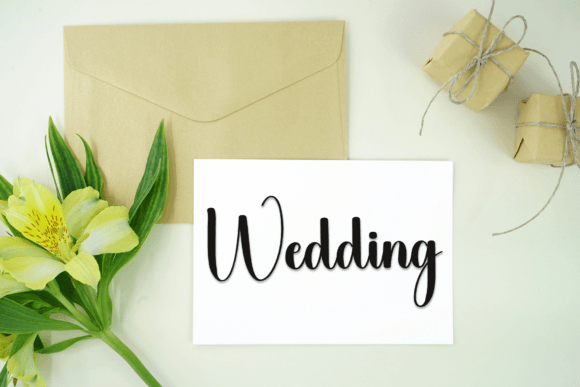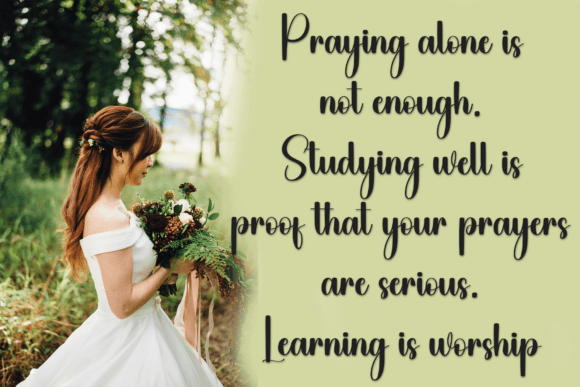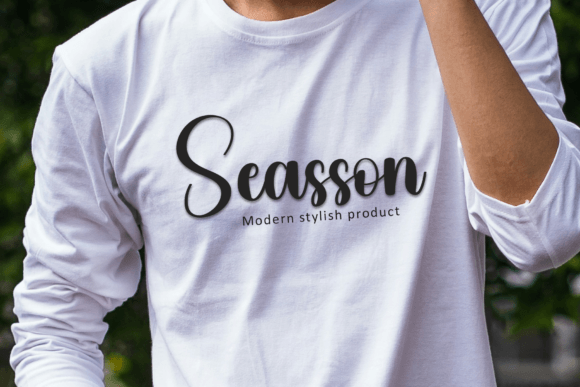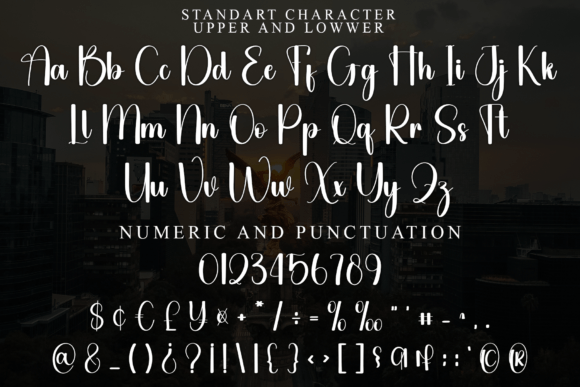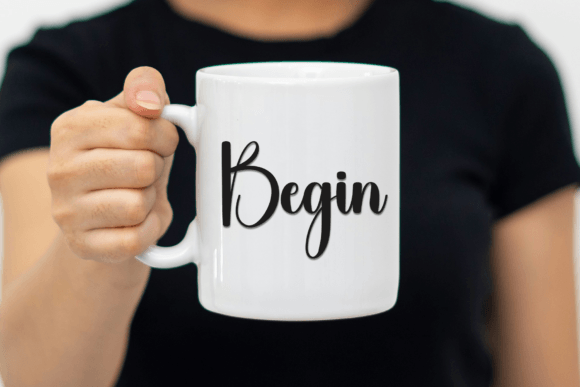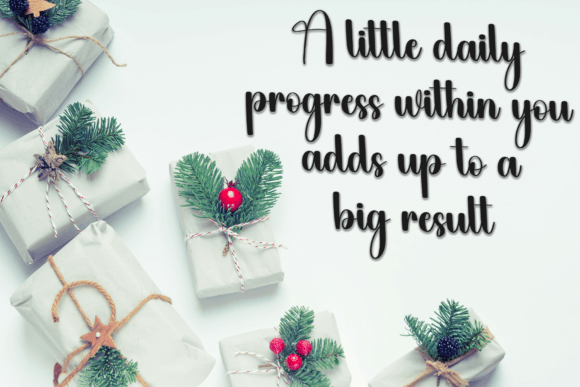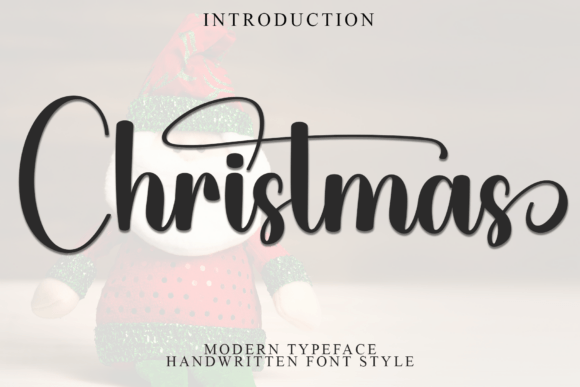
Introducing Christmas Font: A Timeless Classic for Your Holiday Projects
Are you looking for a font that embodies the elegance and sophistication of the holiday season? Look no further than Christmas Font, a stylish and beautiful typeface inspired by timeless classic calligraphy. With its contemporary atmosphere and impeccable form, this font is perfect for designers and crafters seeking to add a touch of luxury to their projects.
A Font that Exudes Elegance and Sophistication
Christmas Font is a masterfully designed typeface that strikes the perfect balance between elegance and playfulness. Its classic calligraphy roots give it a sense of tradition and heritage, while its contemporary twist ensures it remains fresh and modern. Whether you’re working on a holiday card, invitation, or packaging design, this font is sure to impress.
Key Features of Christmas Font
- PUA Encoded: Christmas Font is PUA encoded, which means you can access all of its amazing glyphs and ligatures with ease. This feature makes it incredibly versatile and user-friendly, allowing you to focus on your design rather than getting bogged down in technical details.
- Balanced and Varied: The font features a range of characters and ligatures, ensuring that your text remains visually interesting and engaging. Whether you’re working on a short phrase or a longer passage, Christmas Font adapts seamlessly to your needs.
- Contemporary Atmosphere: While Christmas Font is inspired by classic calligraphy, it has a distinctly modern feel. Its sleek lines and refined curves give it a sophisticated edge that’s perfect for contemporary designs.
Why Designers and Crafters Love Christmas Font
So, what sets Christmas Font apart from other typefaces on the market? Here are just a few reasons why designers and crafters adore this beautiful font:
- Easy to Use: With its PUA encoding and intuitive design, Christmas Font is incredibly easy to use, even for those without extensive design experience.
- Highly Versatile: Whether you’re working on a holiday project, a wedding invitation, or a packaging design, Christmas Font adapts seamlessly to your needs.
- Timeless Appeal: This font’s classic roots ensure it will remain stylish and relevant for years to come, making it a valuable addition to any designer’s toolkit.
Tips for Using Christmas Font in Your Designs
Now that you’re familiar with Christmas Font, here are a few tips for incorporating it into your designs:
- Pair it with a Simple Background: To let Christmas Font shine, pair it with a simple background that won’t compete with the text.
- Experiment with Colors: While traditional holiday colors like red and green are always a great choice, don’t be afraid to experiment with other hues to find the perfect fit for your design.
- Play with Ligatures: Take advantage of Christmas Font’s beautiful ligatures to add visual interest to your text.